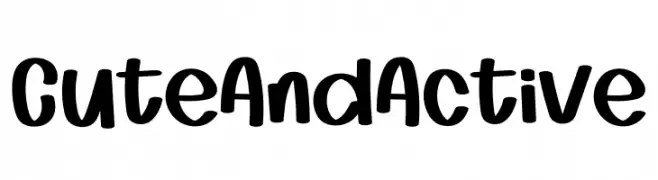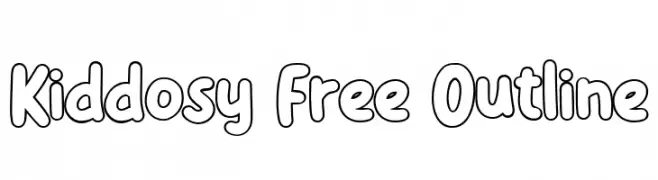
( Fonts by Craft Supply Co. )
A playful, outlined font with bold, rounded characters and a whimsical style.
A festive and playful script font with elegant loops and swirls.
( Fonts by Subectype & Orenari )
A playful, rounded font with a bold and whimsical style.
( Fonts by The Docallisme )
A playful, bold font with scalloped edges and a bubbly appearance.
( Fonts by Pustudio )
A playful, bold font with a hand-drawn, whimsical style.
( Fonts by Sensatype Studio )
A bold, playful font with rounded edges and a bubbly appearance.
( Fonts by Fillo Graphic )
A whimsical decorative font with heart motifs in each character.
( Fonts by ReyreyBlue )
A playful, rounded font with bold, slightly irregular characters.
( Fonts by Khurasan )
A playful, hand-drawn font with rounded, bubbly characters.
( Fonts by Inermedia Studio )
A playful, bold, and rounded hand-drawn font with a whimsical style.